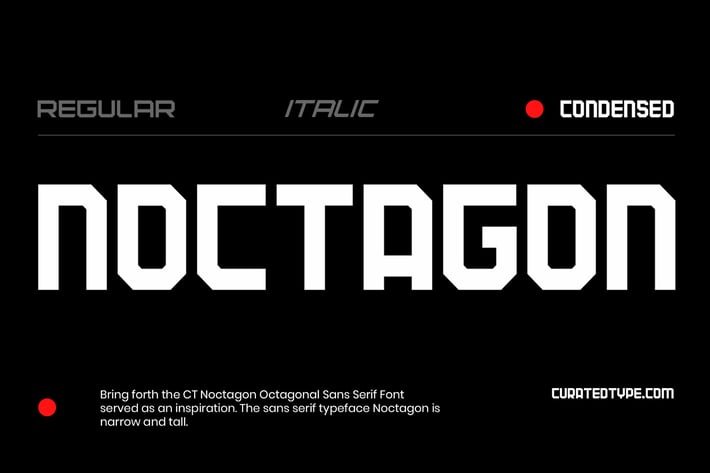
Noctagon Bold Octagonal Sans Serif Font
Bring forth the CT Noctagon Octagonal Sans Serif Font served as an inspiration. The sans serif typeface Noctagon is narrow and tall. If you want your creative ideas to stand out, try adding it to your list of possibilities; it works with a huge variety of tasks.
Noctagon is a beautiful choice for any creative endeavor, retro or vintage design, lifestyle design such as logos, title, cover, branding, display, business card, magazine, poster, film/movie and more. Now you using Maderon to elevate you design or branding.